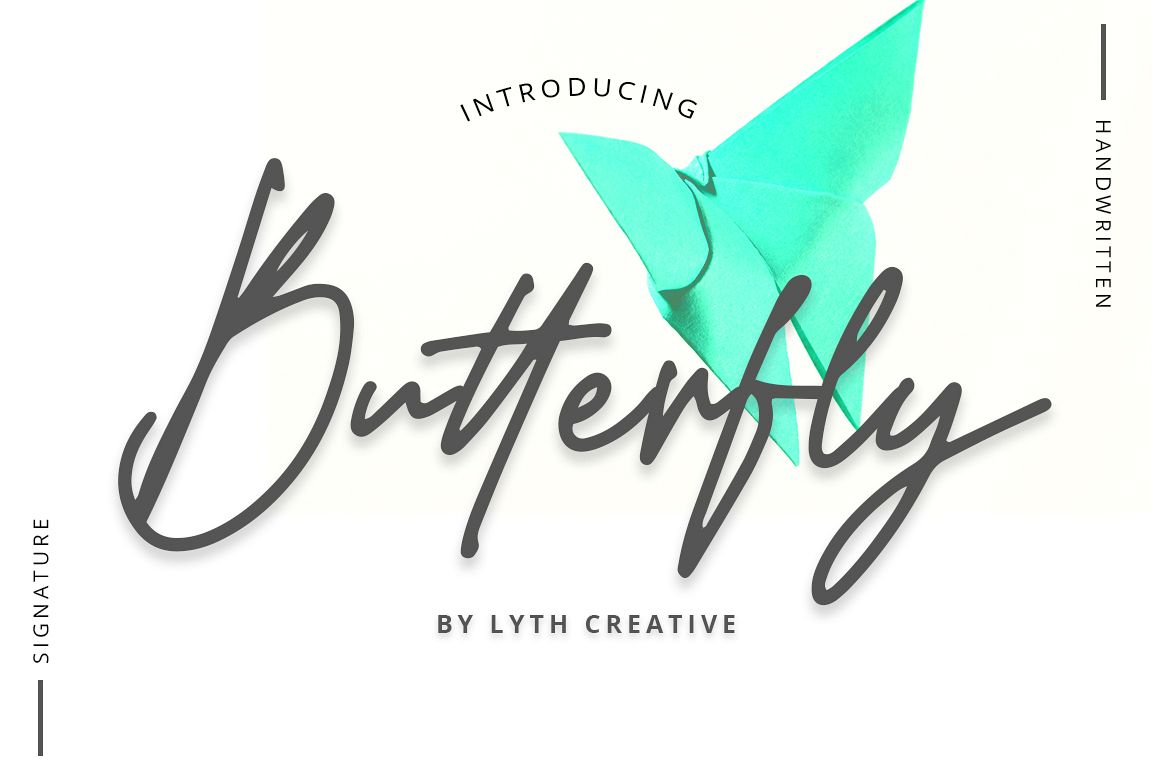
Butterfly Font
Butterfly
Introducing the Butterfly a stylish handwritten with signature style. This beautiful script font offers your personal touch to your latest art project with elegant, classy and modern look.
It can be used for various purposes such as logos, wedding invitations, t-shirts, letterheads, signage’s, labels, and much more!